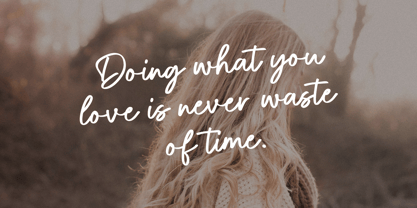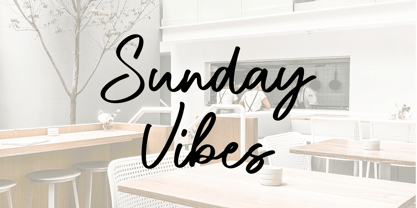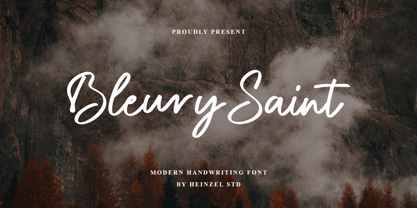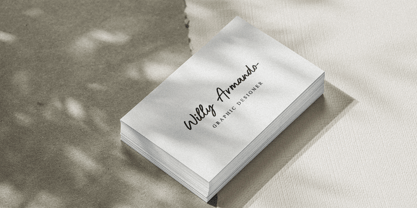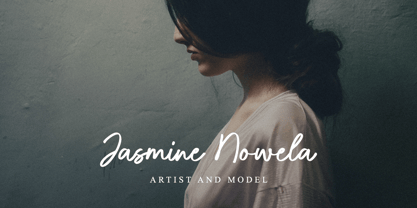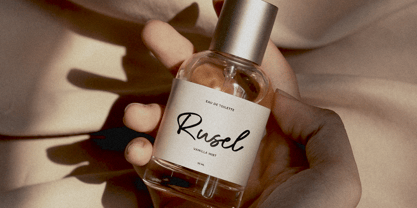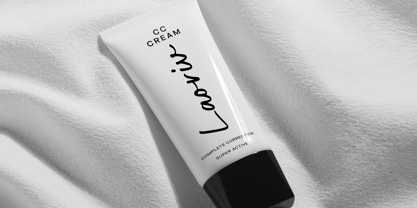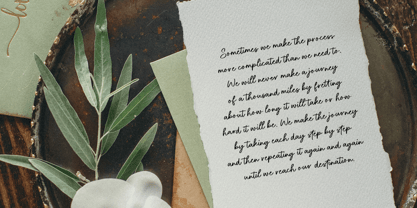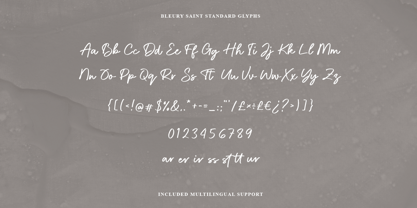
Bleury Saint
by Heinzel Std
The Bleury Saint Font Family was designed by Nofi Sofyan Hadi and published by Heinzel Std. Bleury Saint contains 1 styles. More about this family
Presenting Bleury Saint, a versatile and modern handwriting designed to complement visual artistry. With clean lines and a sleek aesthetic, this font elevates your branding, watermarking, website design, logos, social media posts, capturing the essence of your creative journey through captivating typography.
Bleury Saint